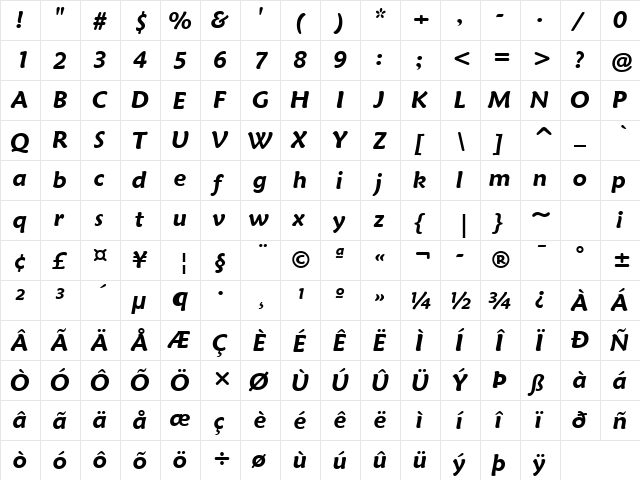
Maiandra Demi Bold Italic GD Italic Font Preview
Design Context for Maiandra Demi Bold Italic GD Typeface
Maiandra Demi Bold Italic GD takes a measured approach to typography — its balanced proportions and neutral character make it a reliable workhorse for both digital and print work. Its italic angle brings a sense of urgency and motion to the letterforms. Its bold stroke weight gives it real presence on the page.
Pro Tip: Try Maiandra Demi Bold Italic GD for annotation and caption copy alongside an upright companion — the contrast in angle creates a dynamic but ordered typographic system.